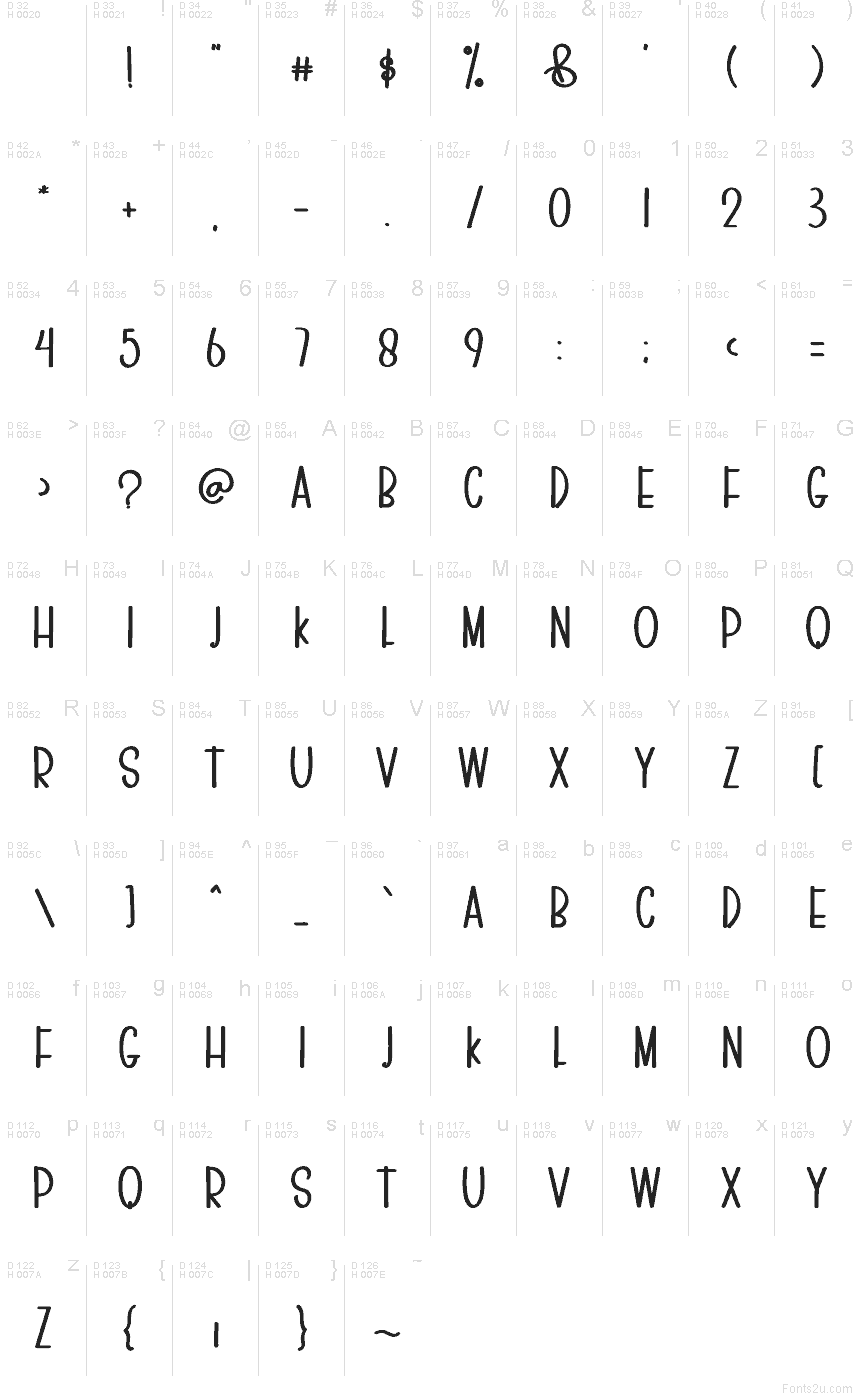
FASTWITCH
Fastwitch font by Inermedia Studio is a free handwritten typeface that turns tall, narrow letterforms into a bold visual signature. The strokes feel inky and slightly imperfect, as if drawn quickly with a marker, giving each word a hand-lettered urgency. Its condensed shapes pull text upward, saving space while still feeling airy and legible, with a subtle eerie vibe that nods to its witchy name without going full horror.
Using Fastwitch, headlines and short phrases snap into focus, making this free font a strong choice for posters, book covers, branding, YouTube thumbnails, event flyers, and product packaging. It works beautifully at larger sizes where those slender, organic lines can really show, and pairs easily with a clean geometric sans for body text. Keep the tracking slightly open to let the tall letters breathe and amplify its punchy, handwritten energy.